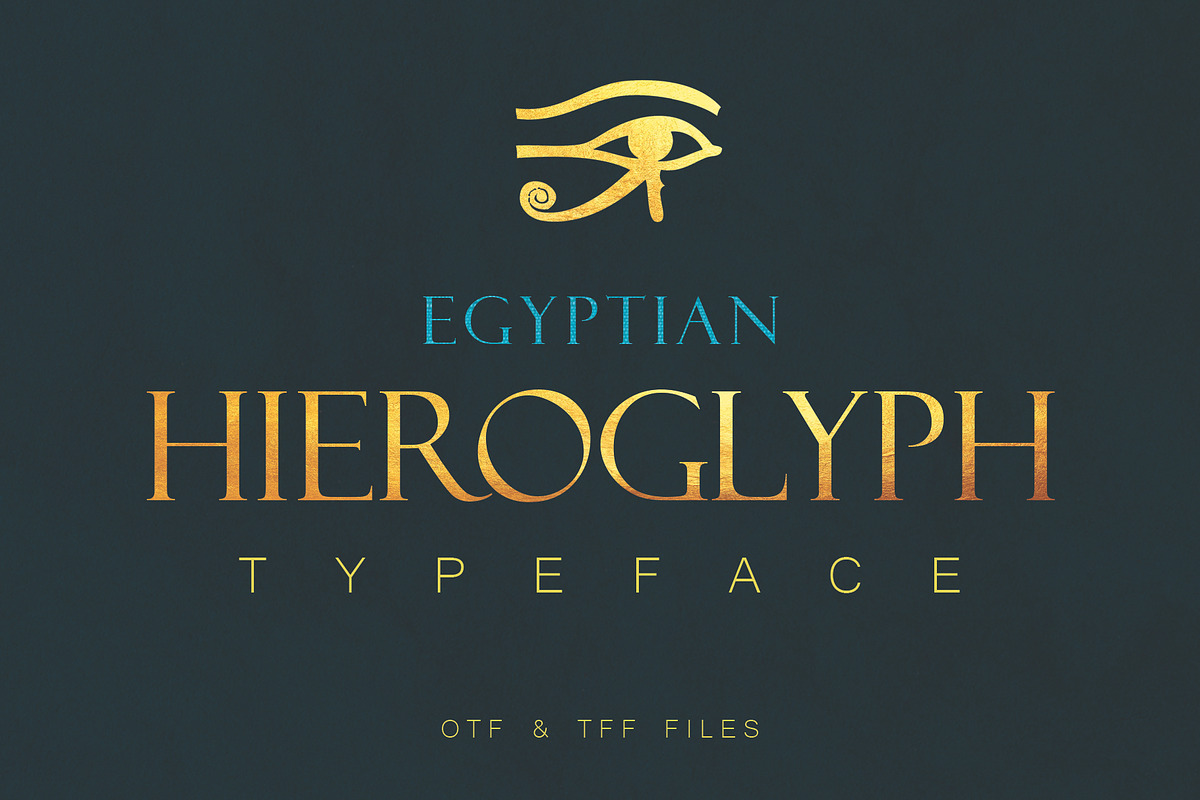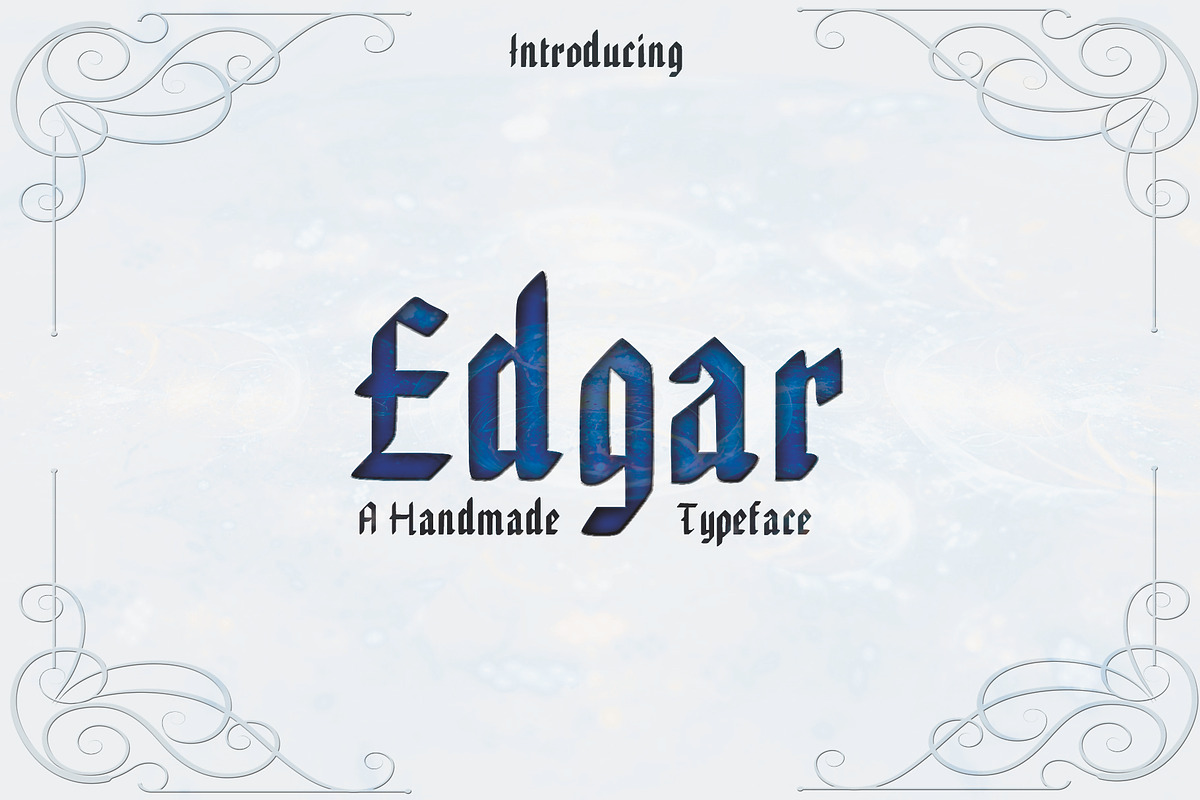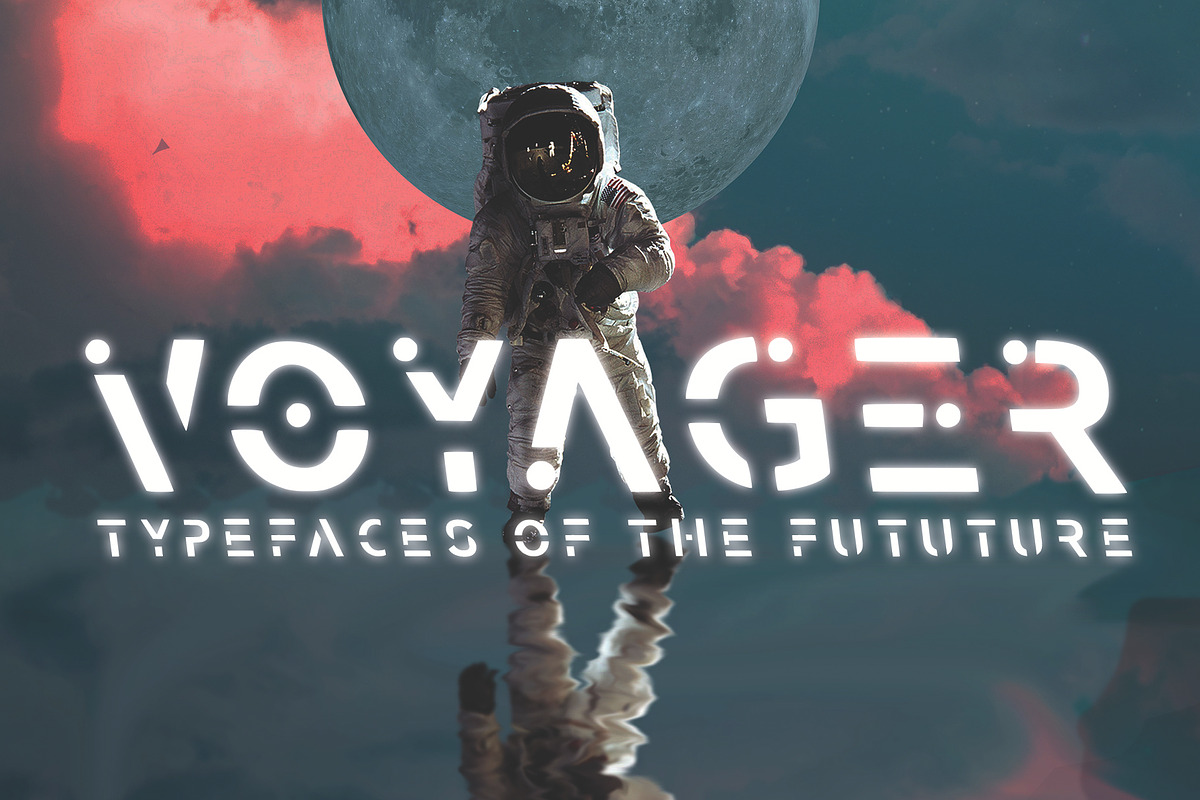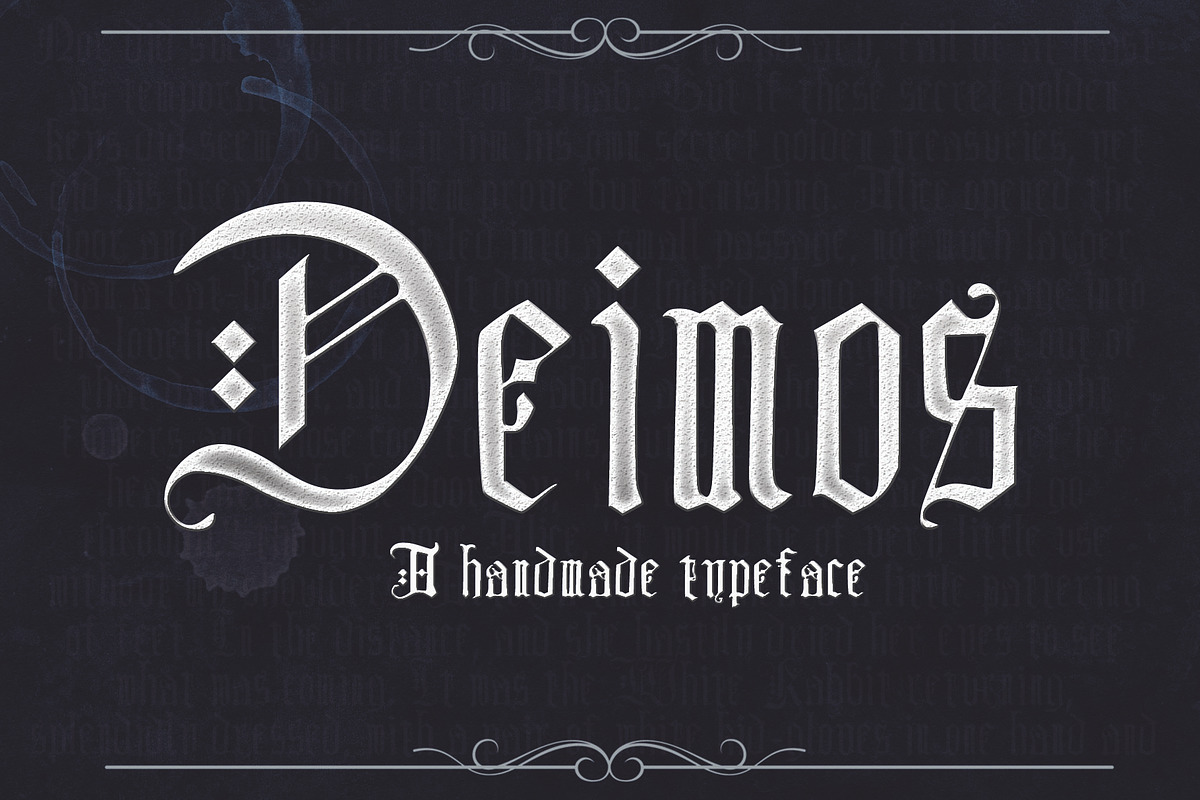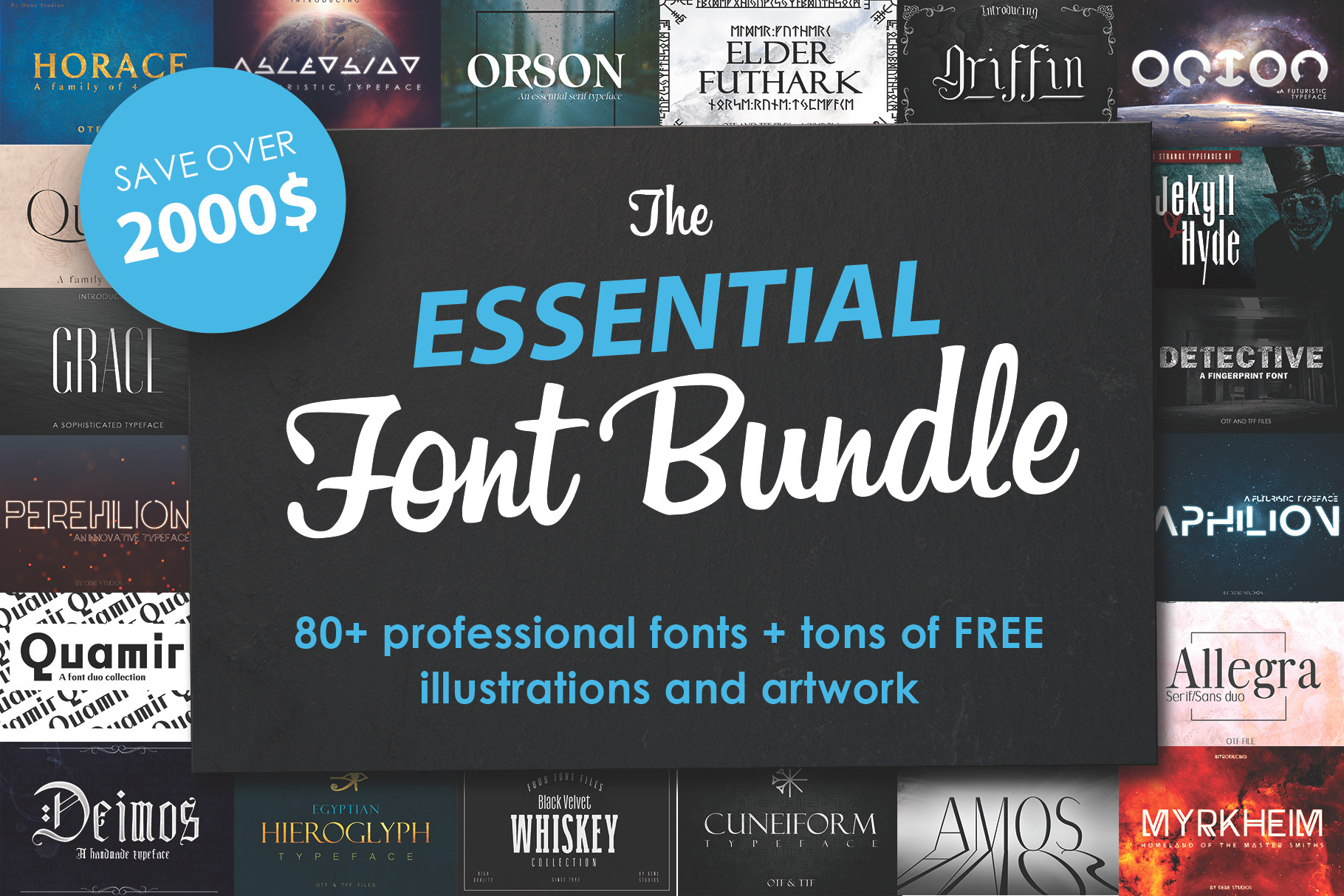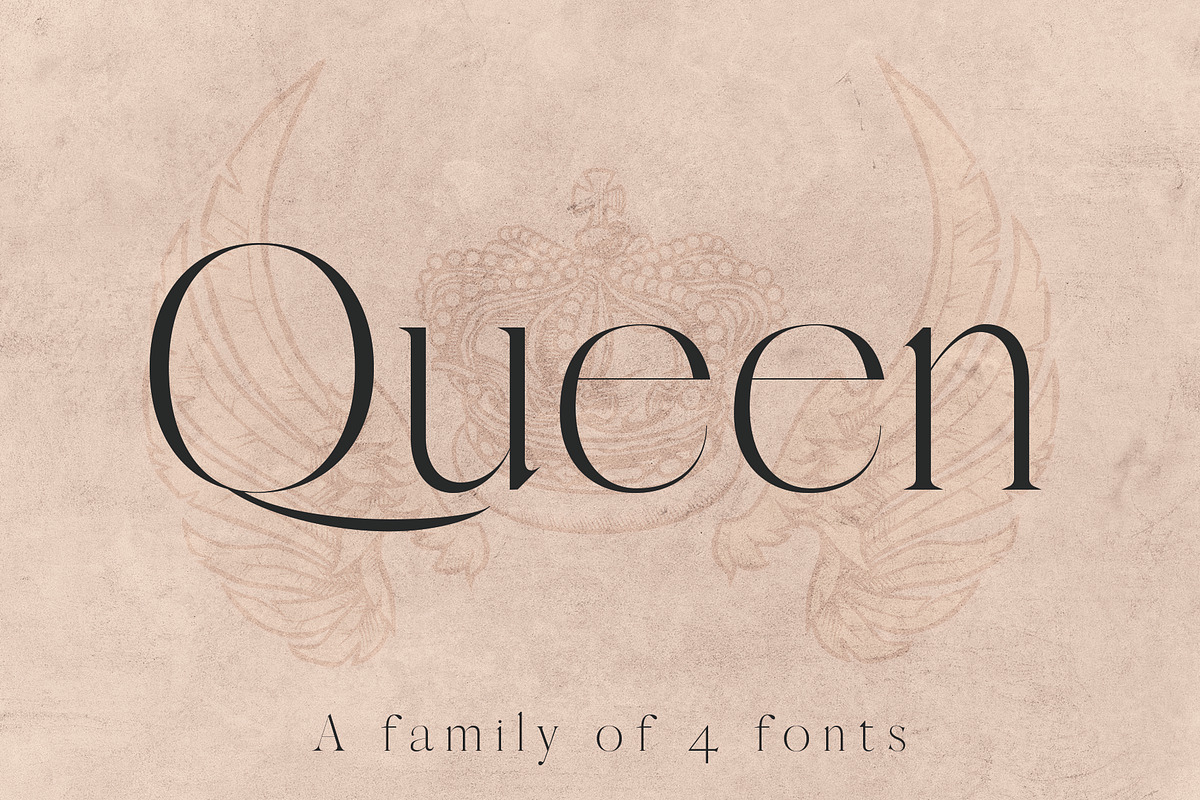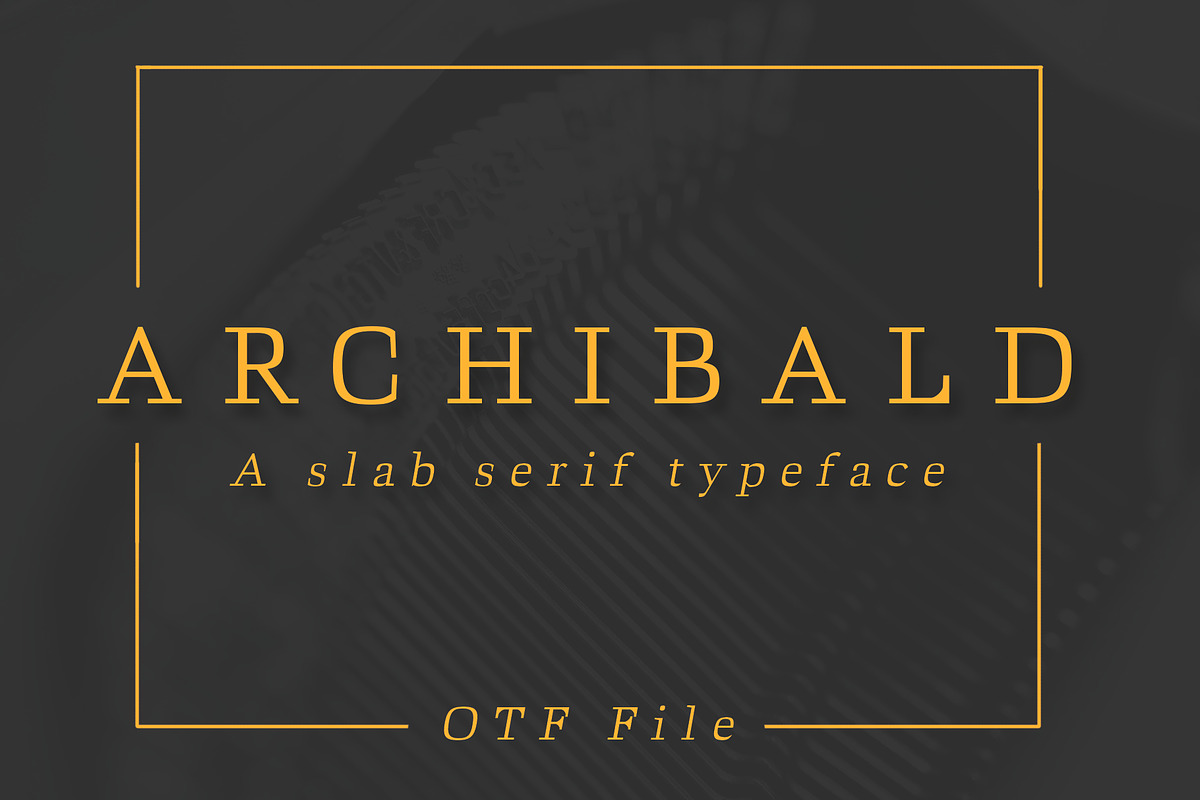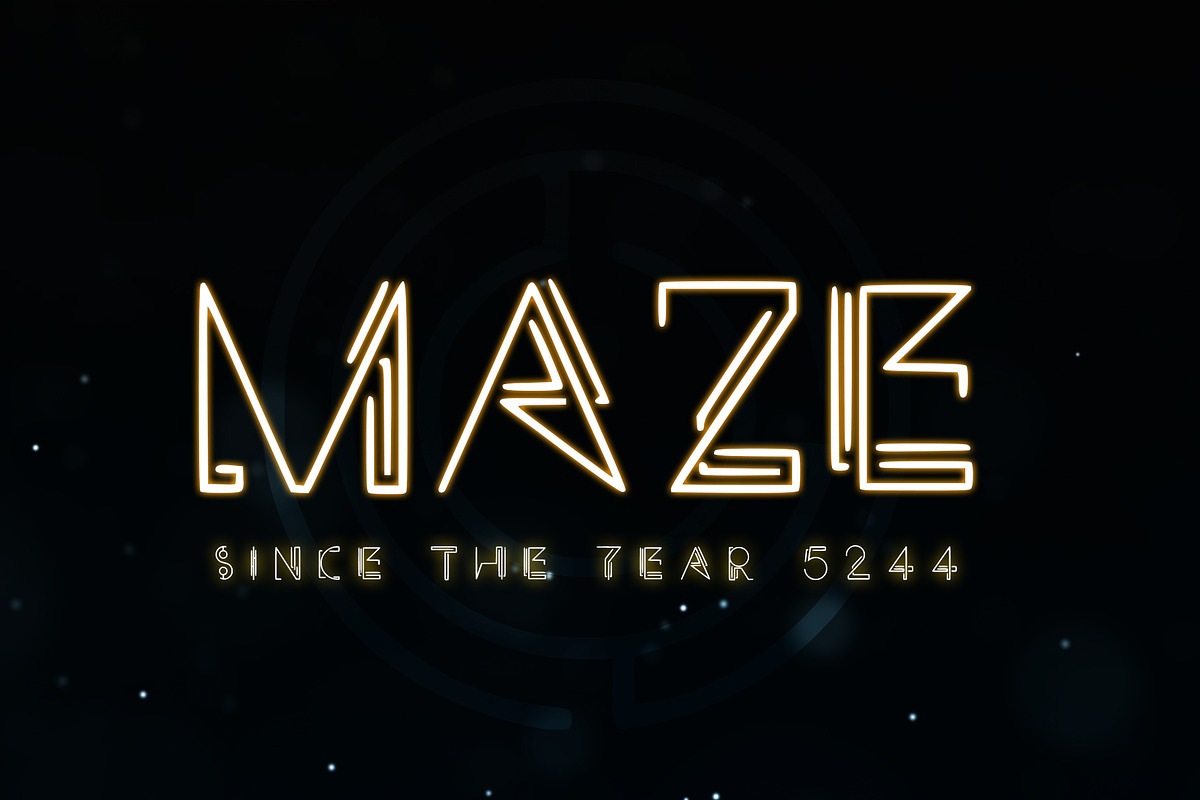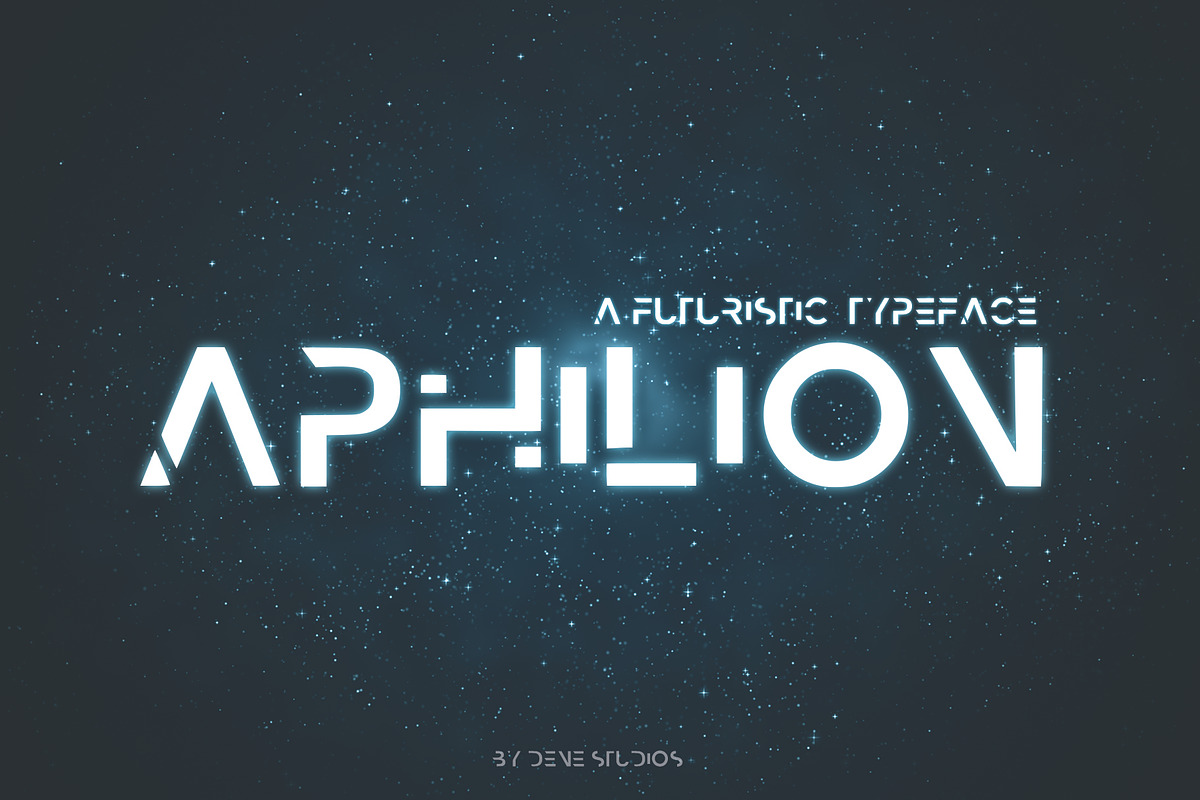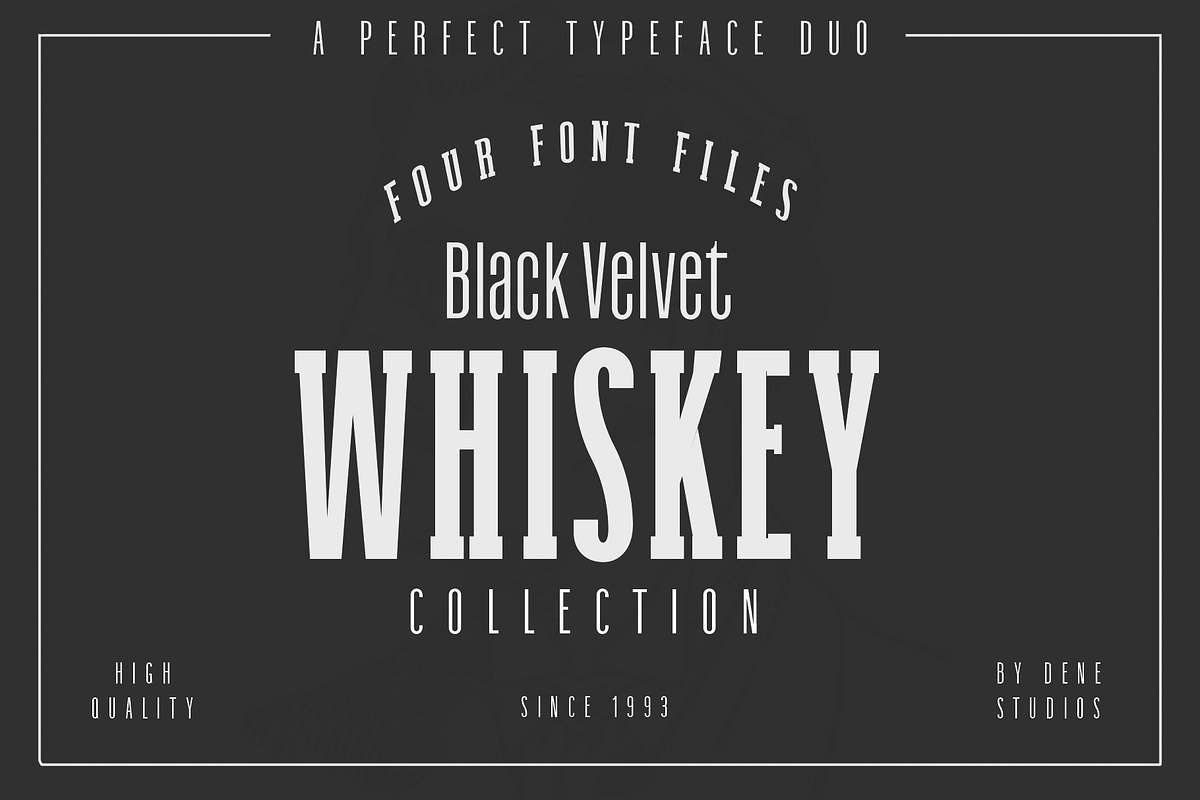
Font Bundle: 80+ professional fonts
Bring your designs to life with this massive collection of 80+ professional fonts worth over $2000!
Presenting The Essential Font Bundle which has a huge variety of fonts such as Serif, Sans Serif, Slab Serif, Display, Symbols, and Gothic typefaces.
- 40 different font families.
- 80+ unique desktop and web fonts
- Multiple effects and weights
- Many FREE Illustrations and artwork